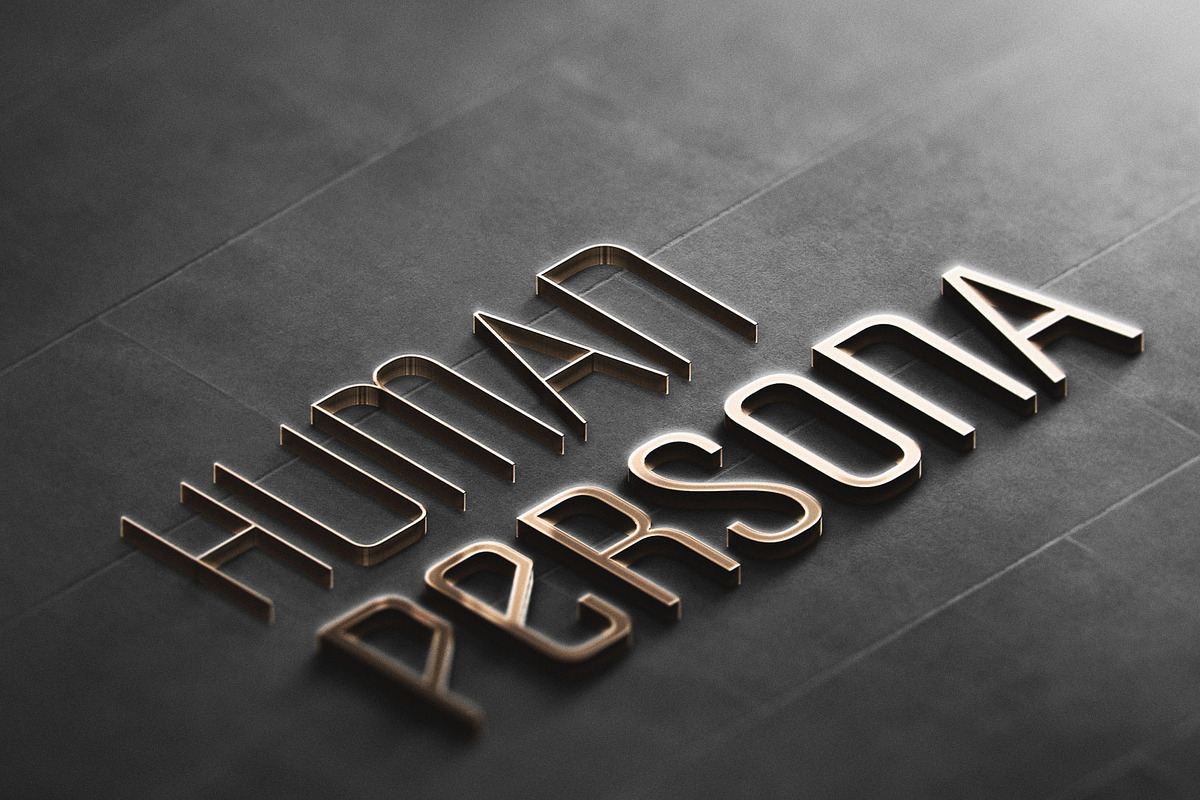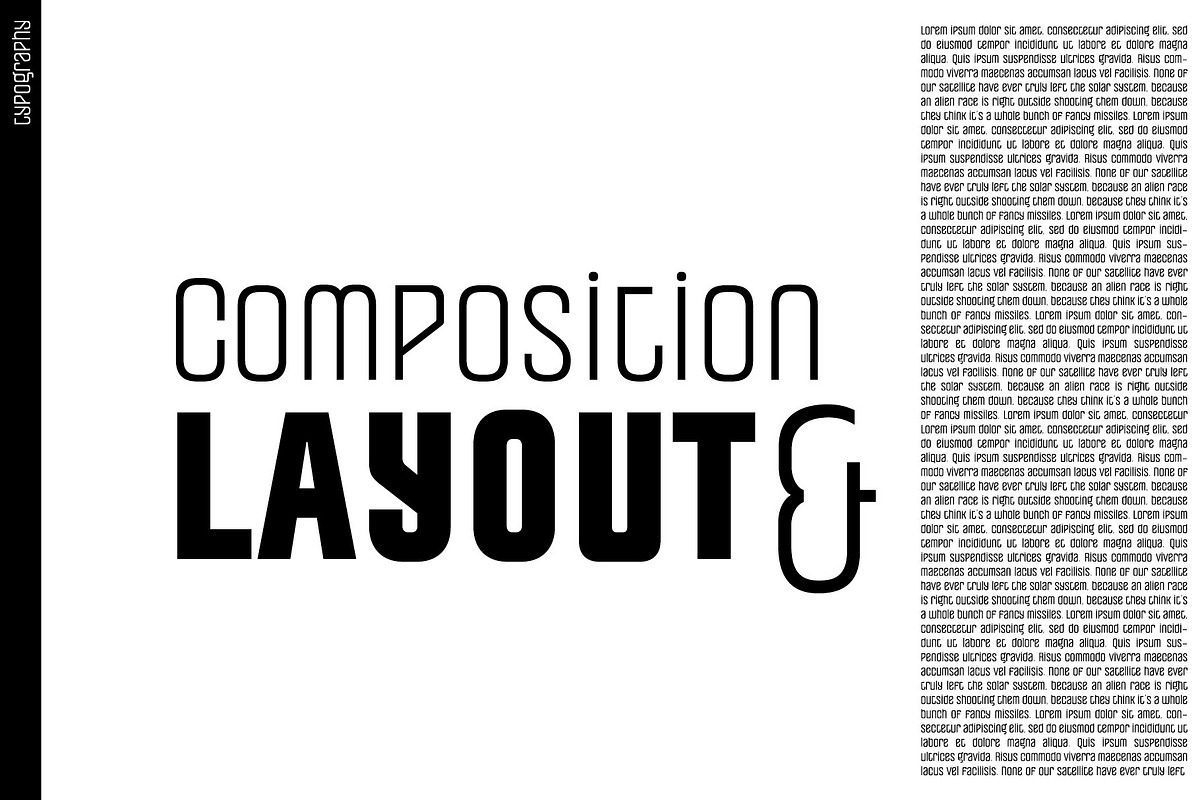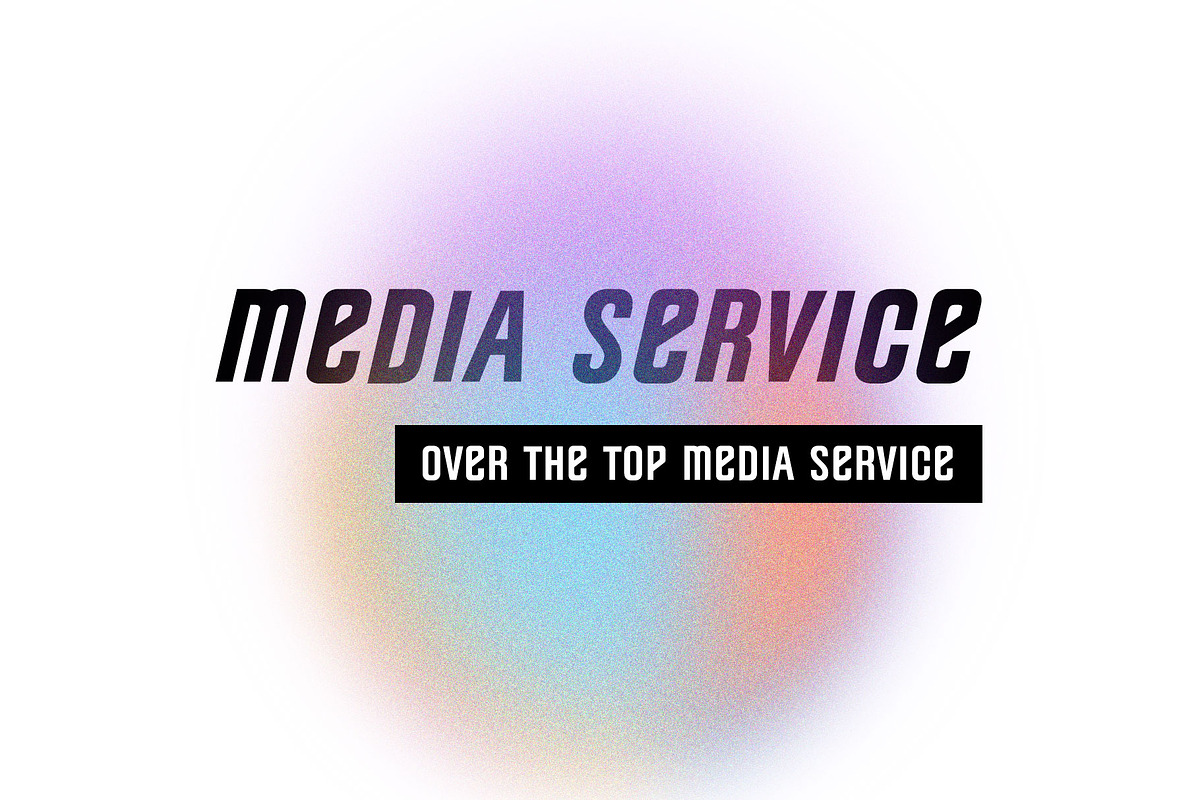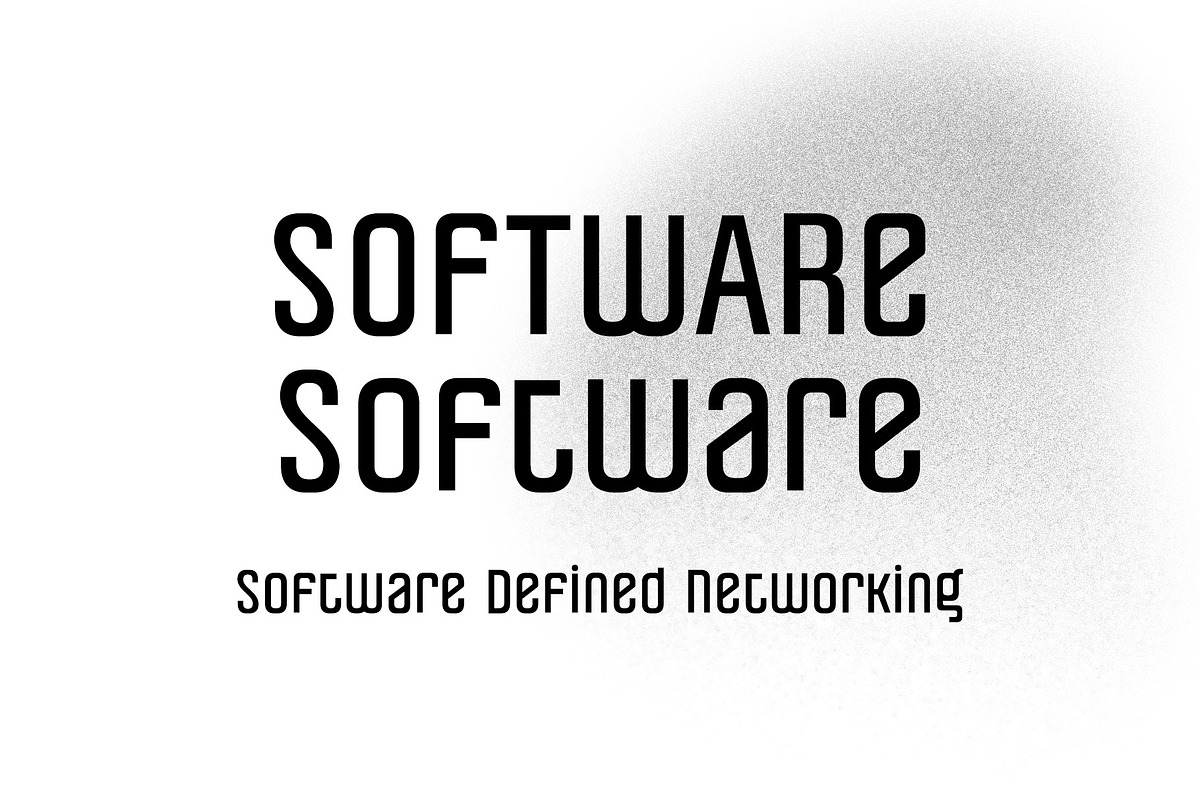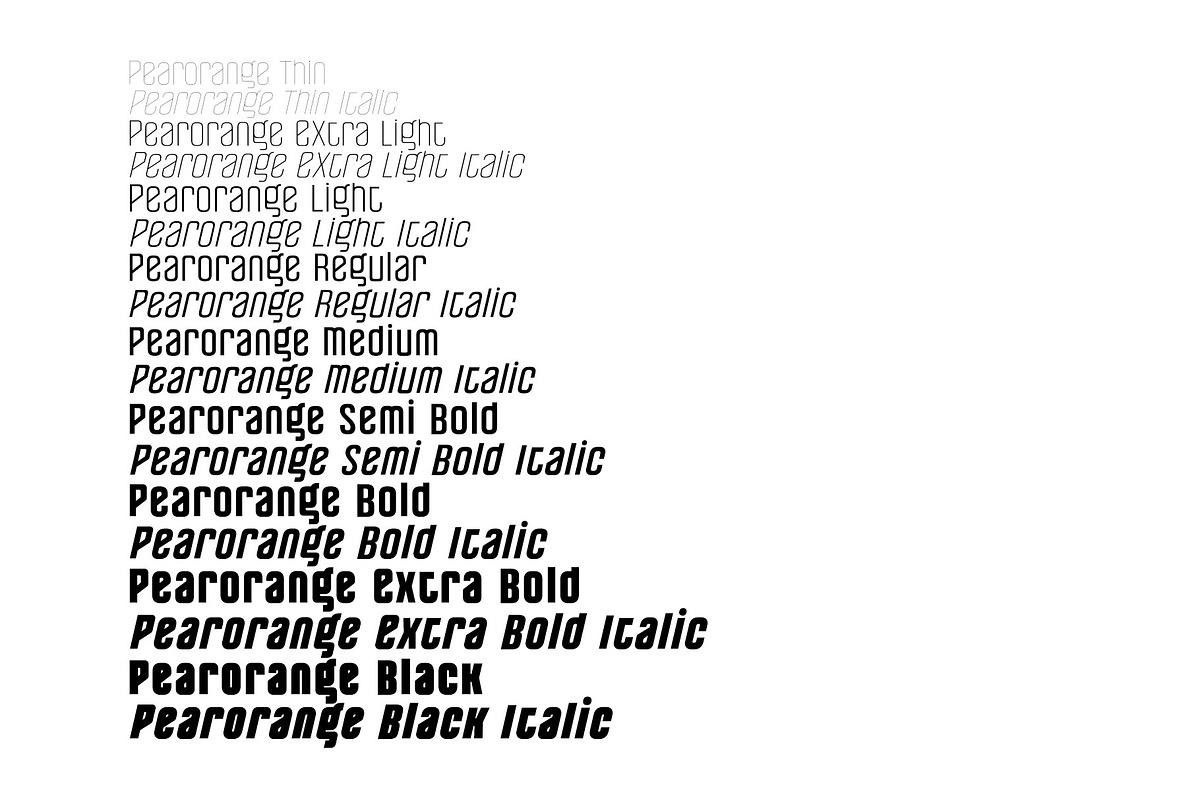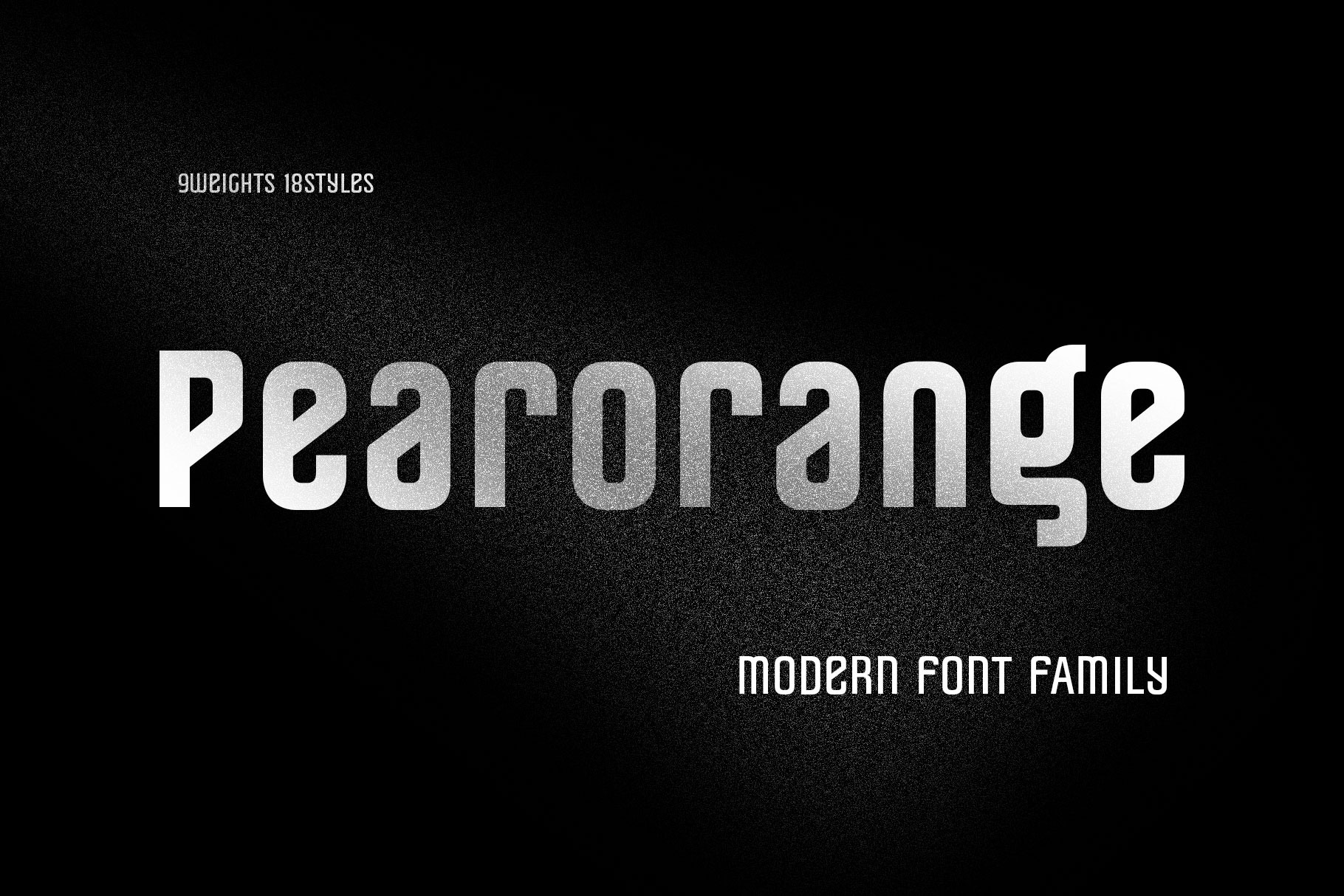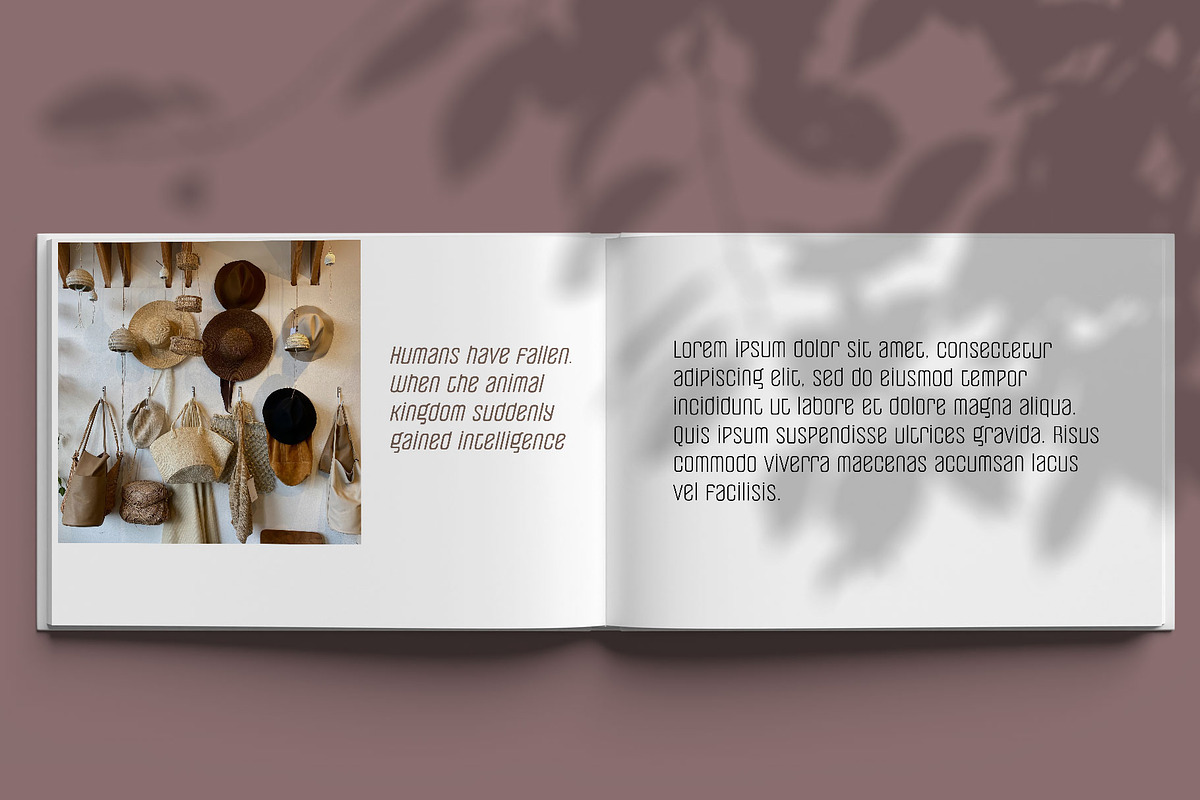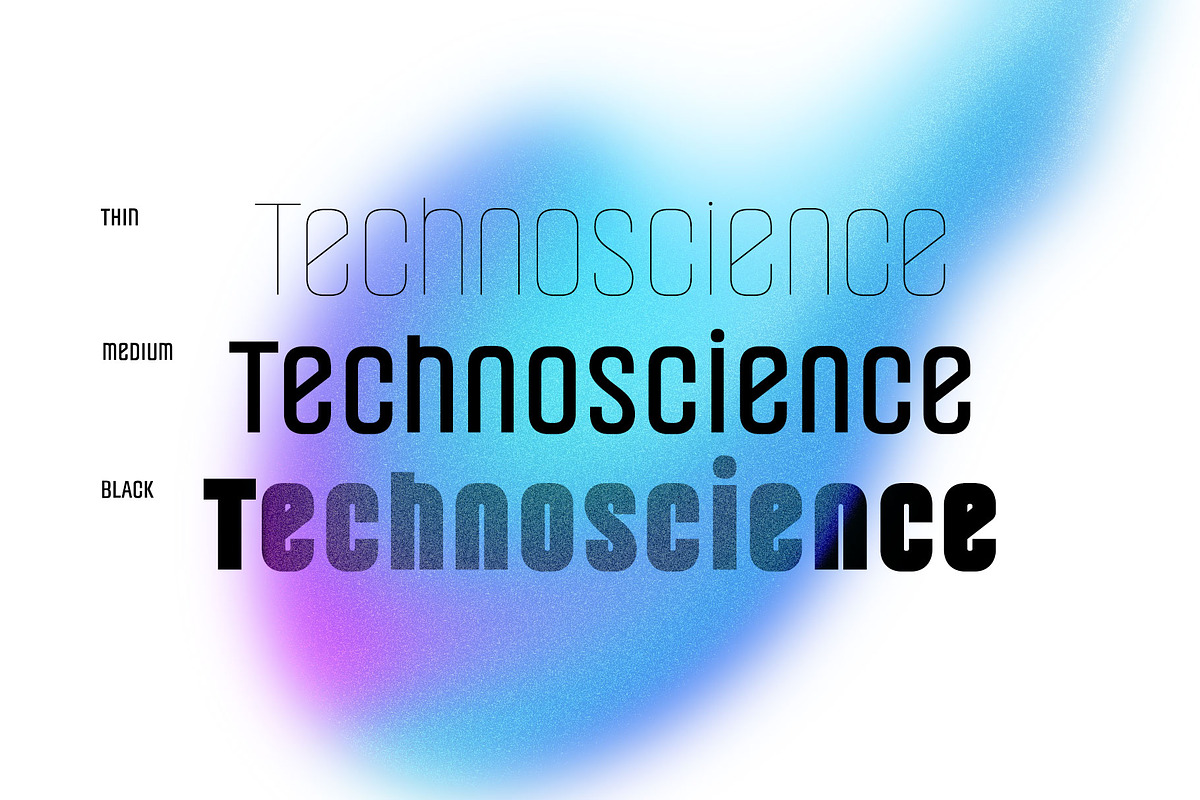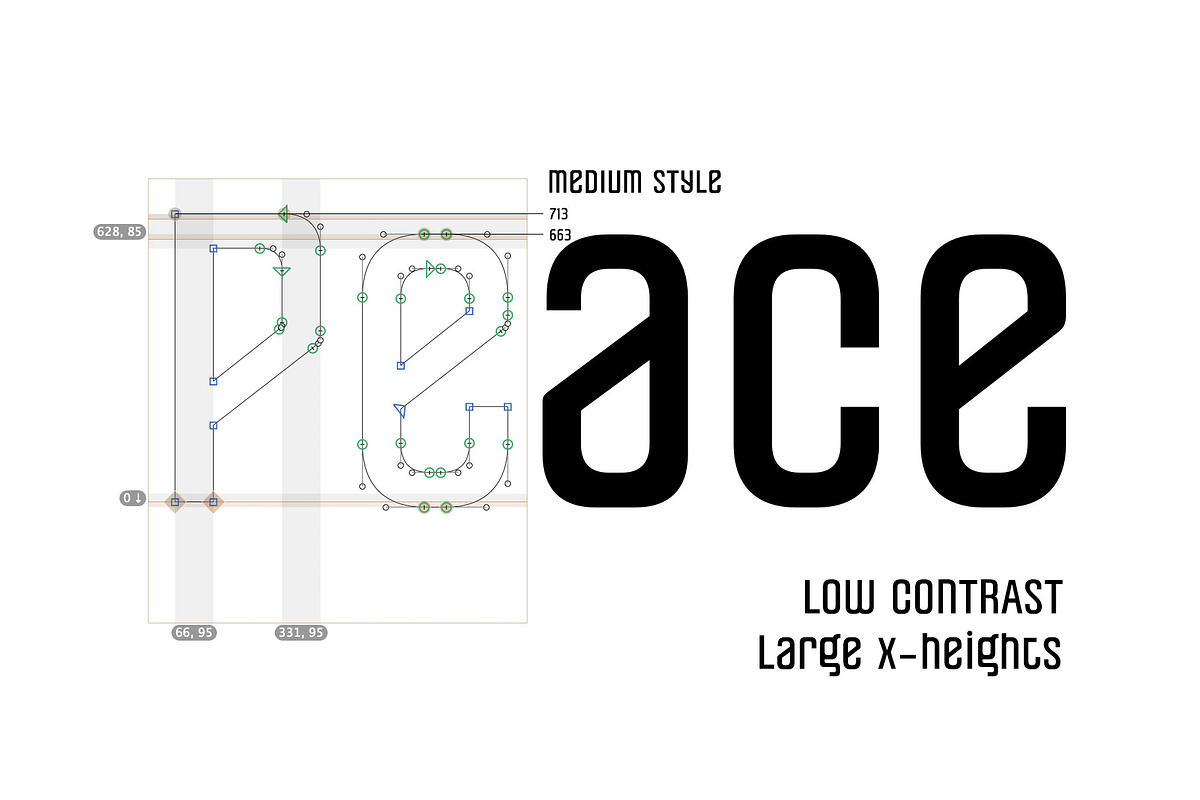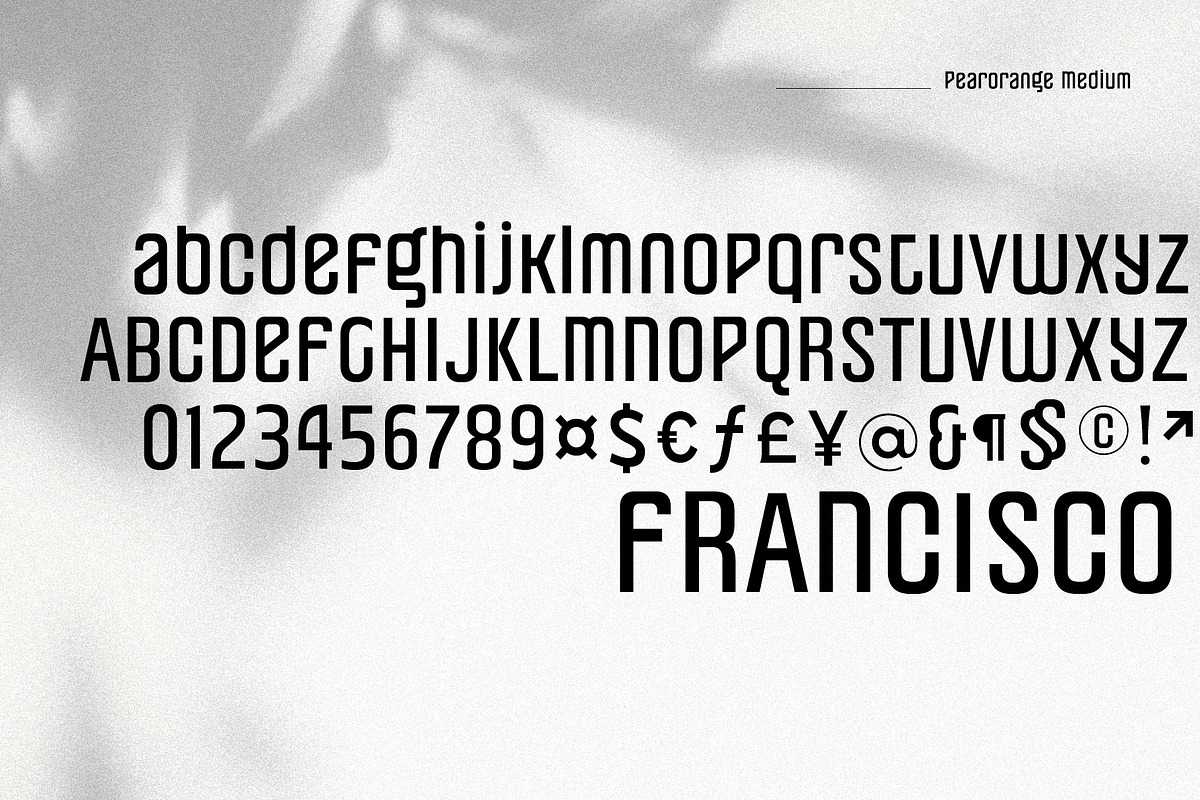
Pearorange Modern Sans Font Family
It is designed to improve the readability and interactive rhythm of glyphs.
For this modern design, large x-heights are applied to all instances. In most cases, the application of large x-heights can improve the heterogeneity of paragraphs that lowercase letters can face, and can lead to more active communication with the readers.
With this clarity improvement, this family can be used as headings as well as body text.
The more you look, the stronger the charm of the typeface that goes with any layout.